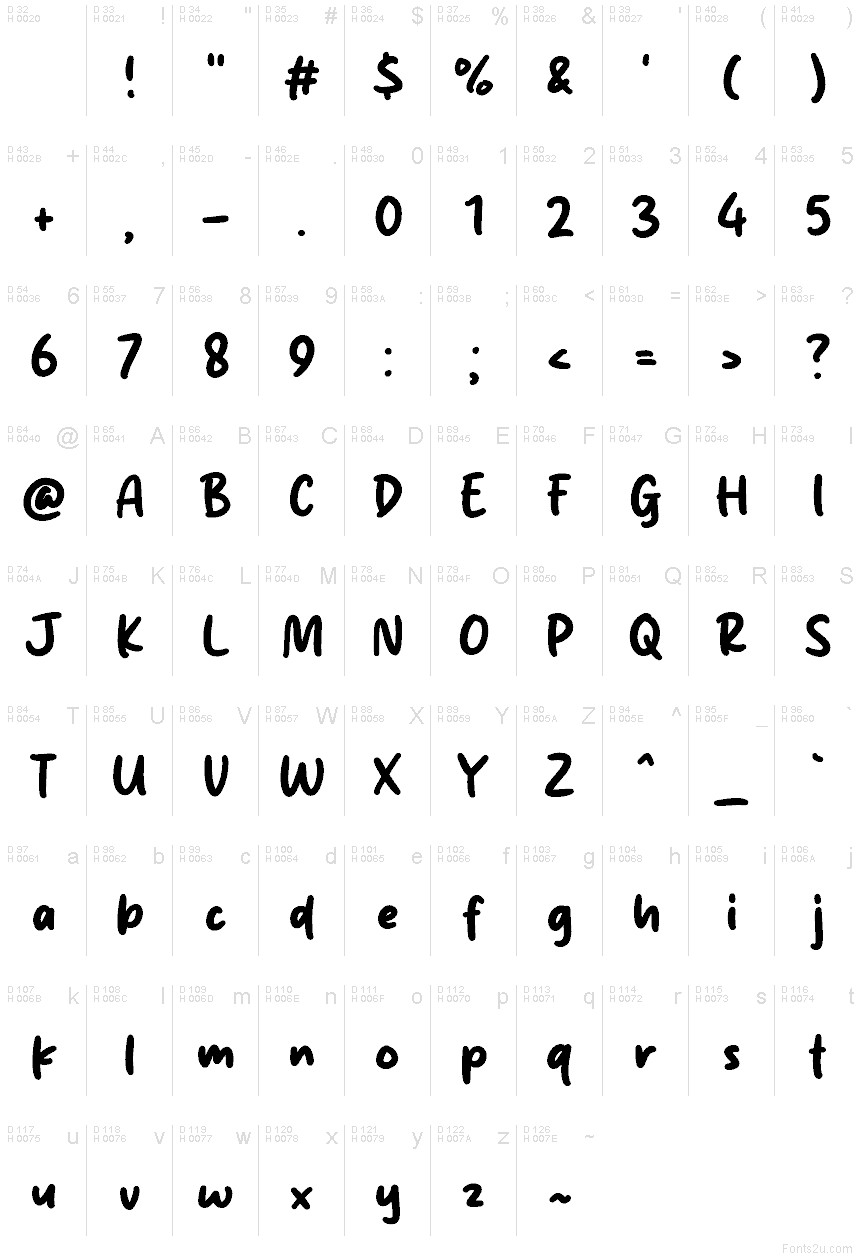
Maryllis
Maryllis font by Origin Type is a free handwritten typeface with the bold, inky confidence of a thick marker pen. Rounded strokes, soft curves, and just a hint of wobble give it that warm, human touch—like notes on a café chalkboard or labels on homemade jam. It’s casual, upbeat, and instantly readable, even at smaller sizes, making it feel friendly rather than messy.
Using Maryllis, you can bring a cozy, personal voice to logo sketches, greeting cards, kids’ book covers, social posts, packaging, stickers, and YouTube thumbnails. This free font shines when you want text to feel spoken rather than printed. Pair Maryllis with a clean, light sans serif for small supporting text, and let its chunky, handwritten letters take center stage in headlines and key phrases.